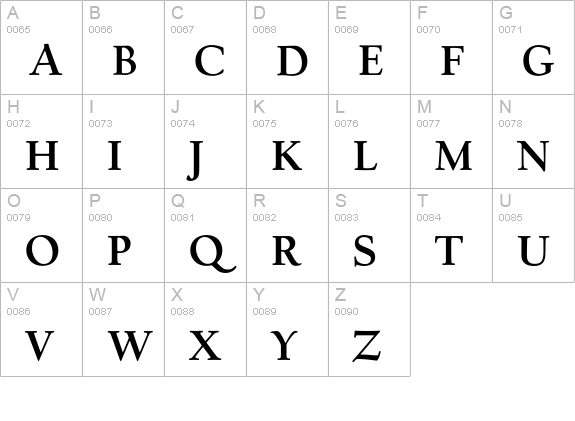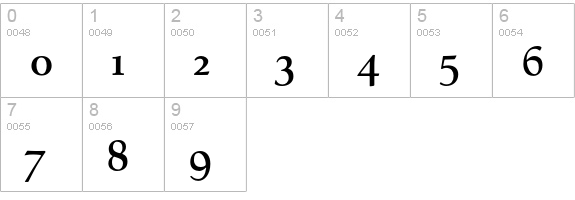
Village-Bold is a strong, high-contrast variant in the Village typeface family \xE2\x80\x94 well suited to headlines, attention-grabbing titles, and strong calls-to-action.
Village-Bold font is a captivating and bold typeface that exudes a sense of strength and confidence. Its strong, thick lines and prominent curves give it a commanding presence, making it the perfect choice for designs that require a powerful and impactful aesthetic. This font effortlessly blends modernity with a hint of vintage charm, making it versatile for various design projects. Whether you are creating eye-catching headlines, attention-grabbing logos, or stylish branding materials, Village-Bold font is sure to make a lasting impression. One of the best aspects of Village-Bold font is that it is free to download at FontsMarket.com. This means that you can easily access and utilize this striking typeface without any cost. FontsMarket.com provides a reliable and user-friendly platform where you can browse and download an extensive collection of fonts, including Village-Bold, to enhance your creative endeavors. With its bold and captivating design, Village-Bold font is the perfect choice for those seeking to make a statement with their typography. Its versatility, combined with the fact that it is freely available to download at FontsMarket.com, makes it a valuable asset for designers, creatives, and enthusiasts alike. So, why wait? Download Village-Bold font today and unleash your creativity with this exceptional typeface.